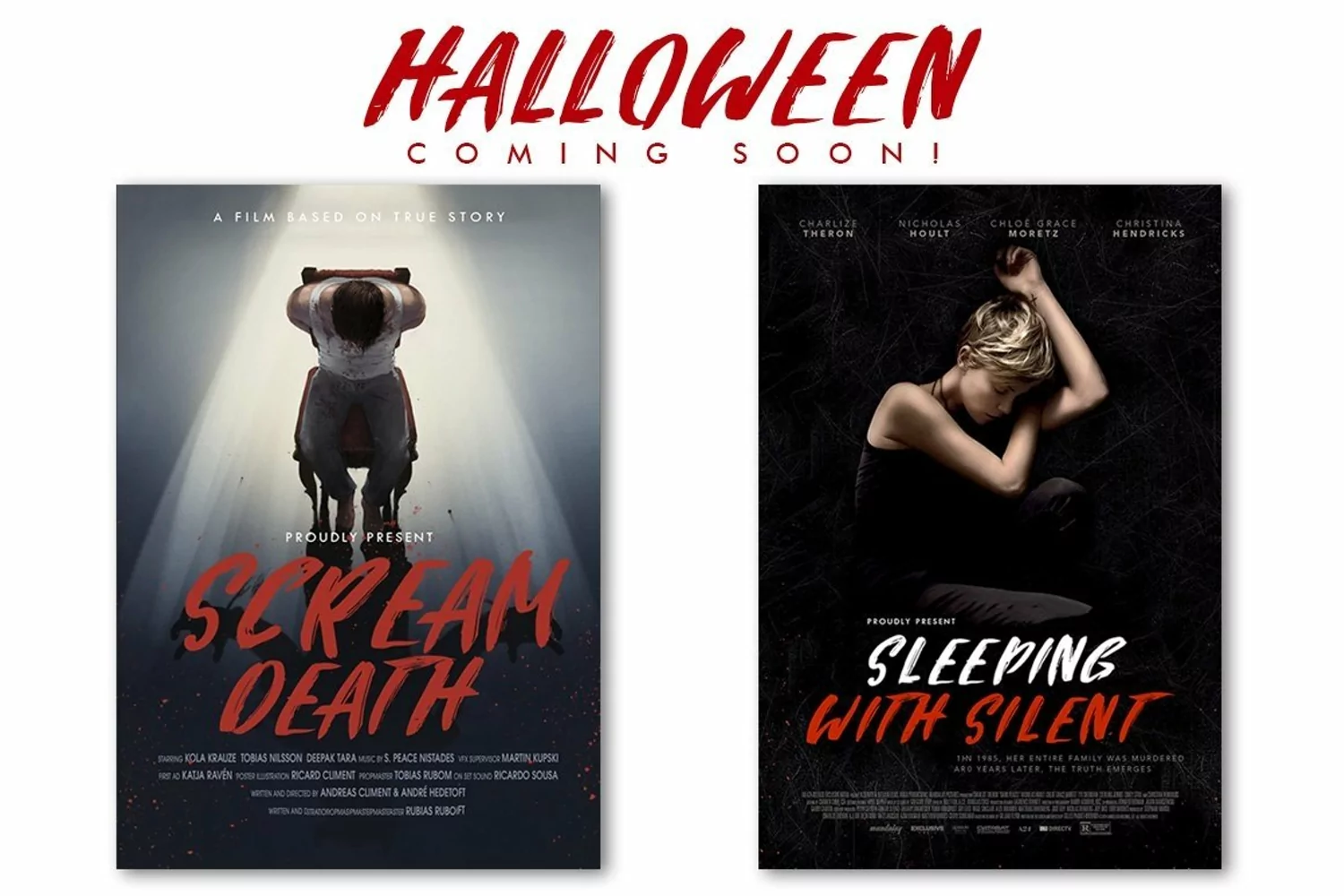
Web Font Attack Brush Font
Attack is a modern brush font, hand painted font that you've been looking for. Each character was carefully painted until perfect. the detail was preserved when the characters were digitized, so that large letters will look fantastic up close and this font looks rough and thick with the texture brush used.
Attack brush font a beautiful for logotype, video game, comic, cartoon, packaging, magazine, header and footheader, website header, fashion design,wedding card design, poster, clothing, and will add a beautiful touch of handmade love to your projects and more. Attack Brush comes with elegant style rough and bold.